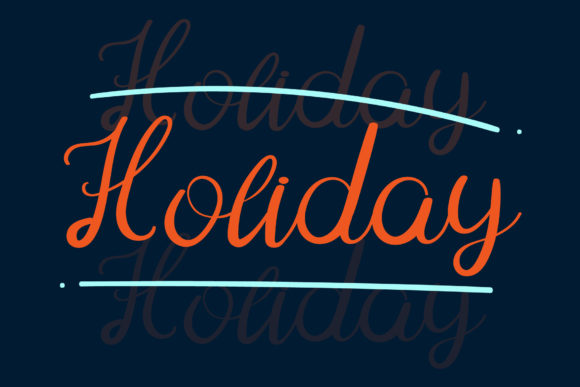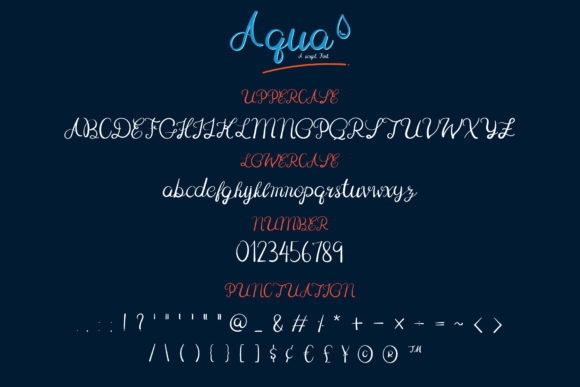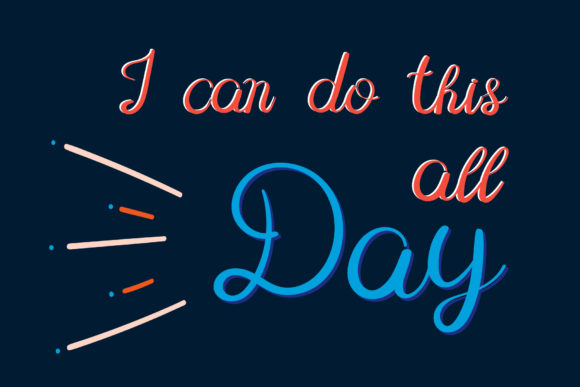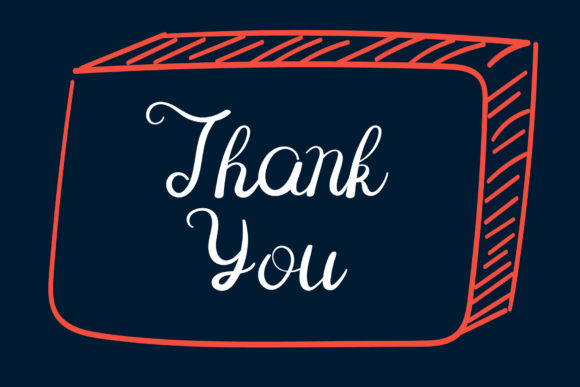
Aqua Font: The Delicate, Round Lettered Handwritten Font for Stunning Designs
Are you a designer or crafter looking for a unique and timeless font to elevate your designs? Look no further than the Aqua Font! This delicate, round lettered handwritten font is sure to capture your heart with its incredibly distinct style. In this article, we’ll dive into the world of Aqua Font, exploring its features, benefits, and uses, as well as provide tips and inspiration for incorporating it into your designs.
What is Aqua Font?
Aqua Font is a beautiful, handwritten font characterized by its round, delicate letters. Its unique style is both classic and modern, making it perfect for a wide range of design projects. Whether you’re creating wedding invitations, branding materials, or digital content, Aqua Font is sure to add a touch of elegance and sophistication.
Features of Aqua Font
So, what makes Aqua Font so special? Here are just a few of its standout features:
- Delicate and feminine: Aqua Font’s slender lines and rounded edges give it a distinctly feminine touch, perfect for designs that require a touch of elegance.
- Timeless style: Unlike trendy fonts that quickly go out of style, Aqua Font’s classic design ensures it will remain relevant for years to come.
- Highly legible: Despite its delicate nature, Aqua Font is surprisingly easy to read, making it perfect for body text and headlines.
- Versatile: Aqua Font can be used for a wide range of design projects, from digital content to print materials.
Benefits of Using Aqua Font
So, why should you choose Aqua Font for your designs? Here are just a few benefits:
- Adds elegance to your designs: Aqua Font’s sophisticated style instantly elevates your designs, making them perfect for high-end brands and luxury products.
- Creates a lasting impression: Aqua Font’s unique style ensures your designs will stand out from the crowd, leaving a lasting impression on your audience.
- Easy to pair with other fonts: Aqua Font’s classic design makes it easy to pair with other fonts, allowing you to create stunning font combinations.
Using Aqua Font in Your Designs
Now that you’re convinced of Aqua Font’s charms, let’s explore some ways to incorporate it into your designs:
- Wedding invitations and stationery: Aqua Font’s elegant style makes it perfect for wedding invitations, save-the-dates, and other stationery.
- Branding and packaging: Use Aqua Font to add a touch of sophistication to your brand’s packaging, labels, and marketing materials.
- Digital content: Aqua Font is perfect for blog posts, social media graphics, and other digital content that requires a touch of elegance.
- Crafting and DIY projects: Aqua Font can be used for a variety of crafting and DIY projects, such as card making, scrapbooking, and more.
Tips for Working with Aqua Font
Here are a few tips to keep in mind when working with Aqua Font:
- Use it sparingly: While Aqua Font is beautiful, it’s best used sparingly to avoid overwhelming your designs.
- Pair it with contrasting fonts: Pair Aqua Font with bold, contrasting fonts to create stunning font combinations.
- Experiment with colors: Aqua Font looks beautiful in a range of colors, so don’t be afraid to experiment and find the perfect hue for your design.
In conclusion, Aqua Font is a delicate, round lettered handwritten font that is sure to capture your heart. Its incredibly distinct and timeless style makes it perfect for a wide range of design projects, from wedding invitations to digital content. With its elegant features, benefits, and versatility, Aqua Font is a must-have for designers and crafters looking to elevate their designs. So why wait? Fall in love with Aqua Font and start creating spectacular designs today!